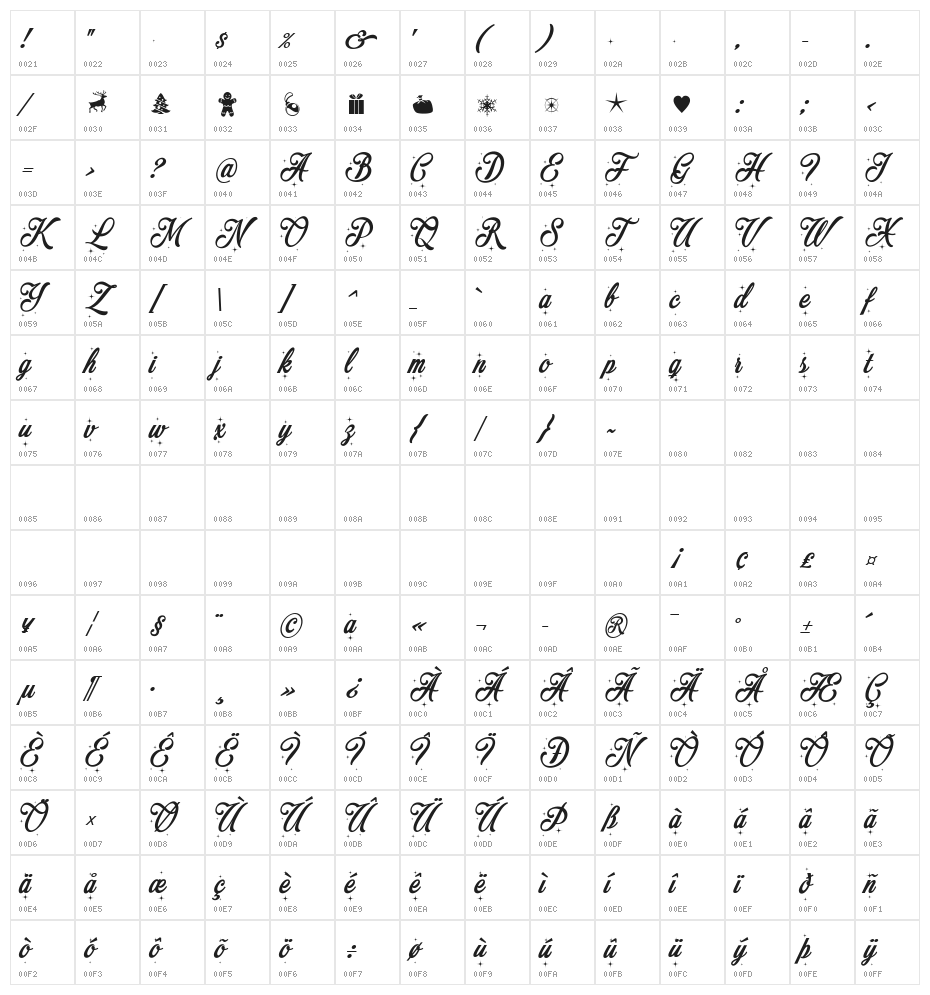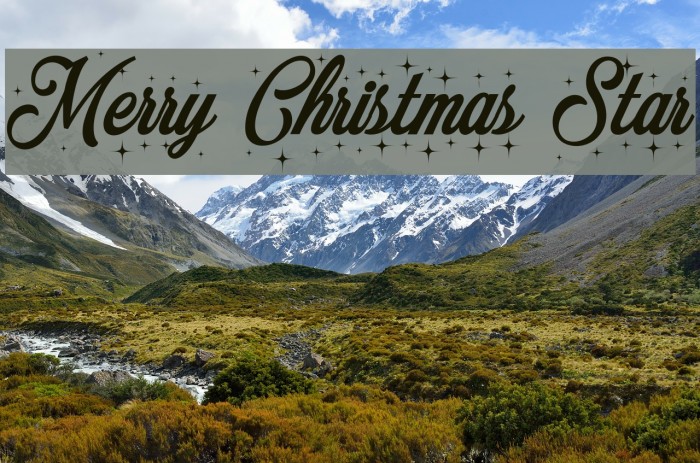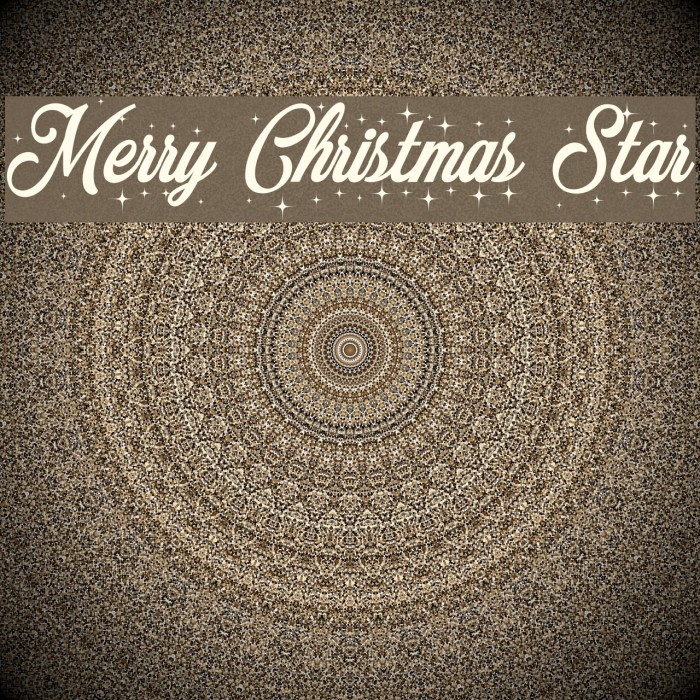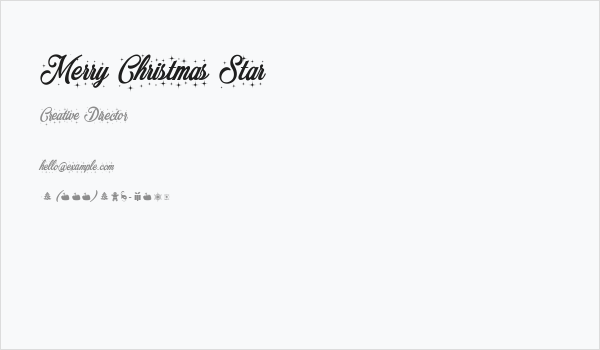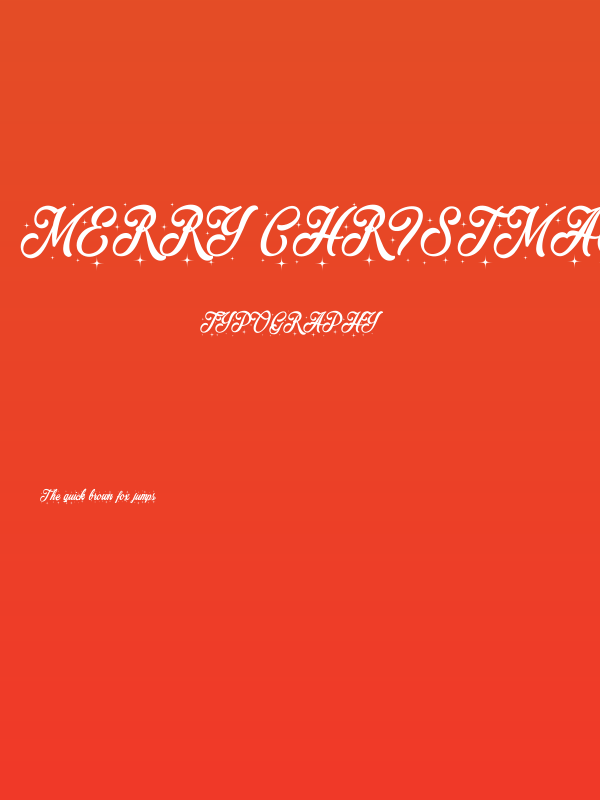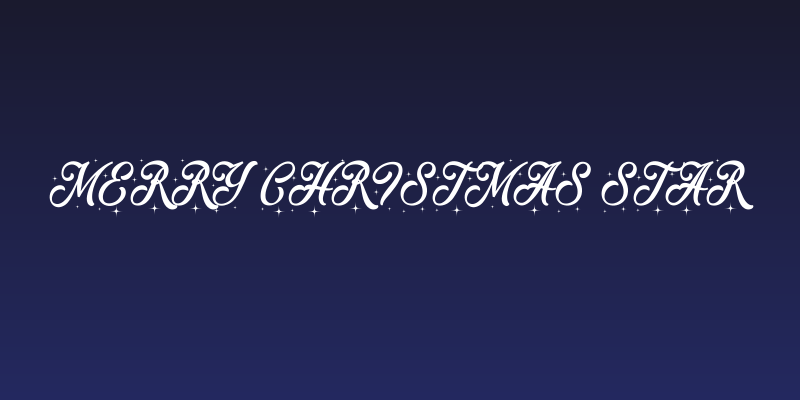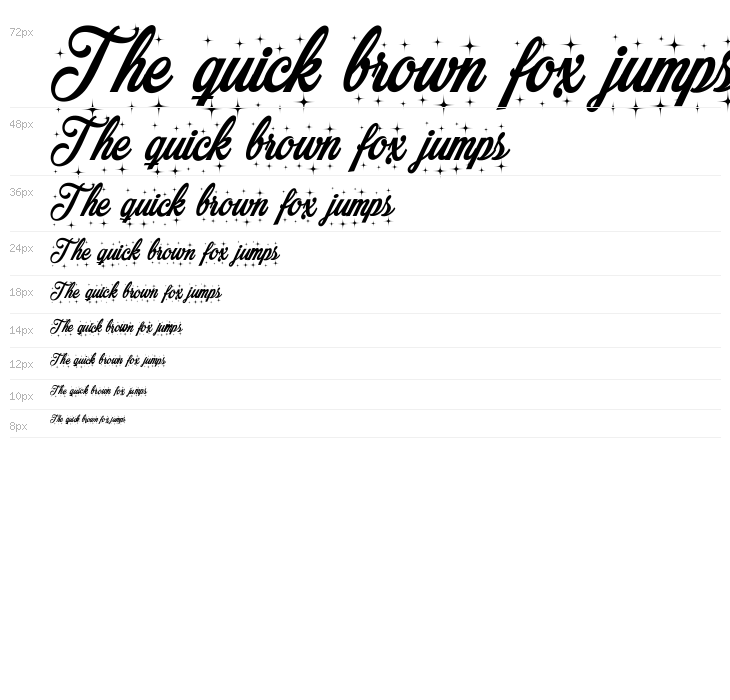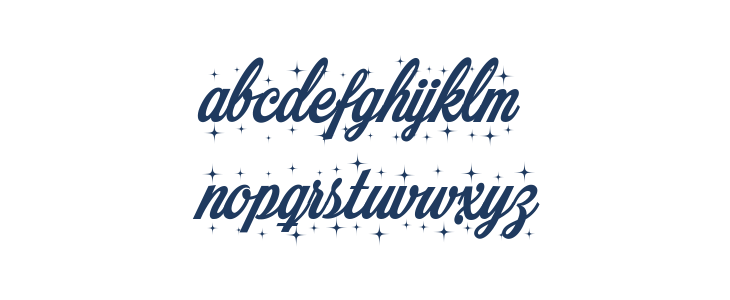
Merry Christmas Star Font
Merry Christmas Star Description
This font exudes a festive and decorative style, perfect for holiday-themed projects. The uppercase letters are elegantly cursive, adorned with star-like embellishments that add a whimsical touch. The lowercase letters maintain a bold, script-like appearance, providing a harmonious contrast to the uppercase. The inclusion of holiday-themed icons such as reindeer, Christmas trees, and snowflakes enhances its seasonal appeal. The special characters are thoughtfully designed to match the overall festive theme, making it ideal for creative and celebratory designs.
| Use Case | Headlines, Logos, Seasonal Designs |
| Proposed Projects | Ideal for Christmas cards, holiday invitations, festive posters, and seasonal branding. |